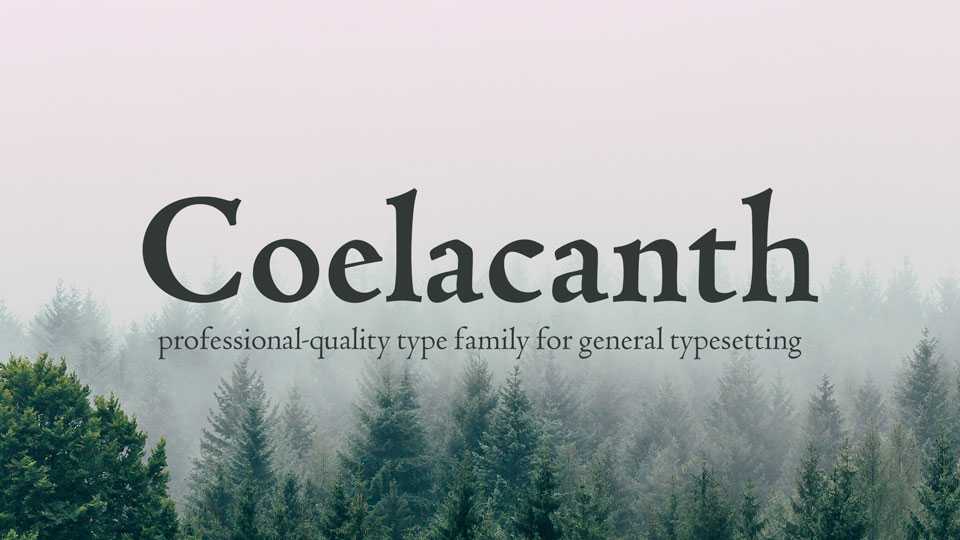
Download Coelacanth typeface, a professional-quality serif font family with 37 styles for general typesetting inspired by Bruce Rogers’ much beloved Centaur.
Designer: Ben Whitmore